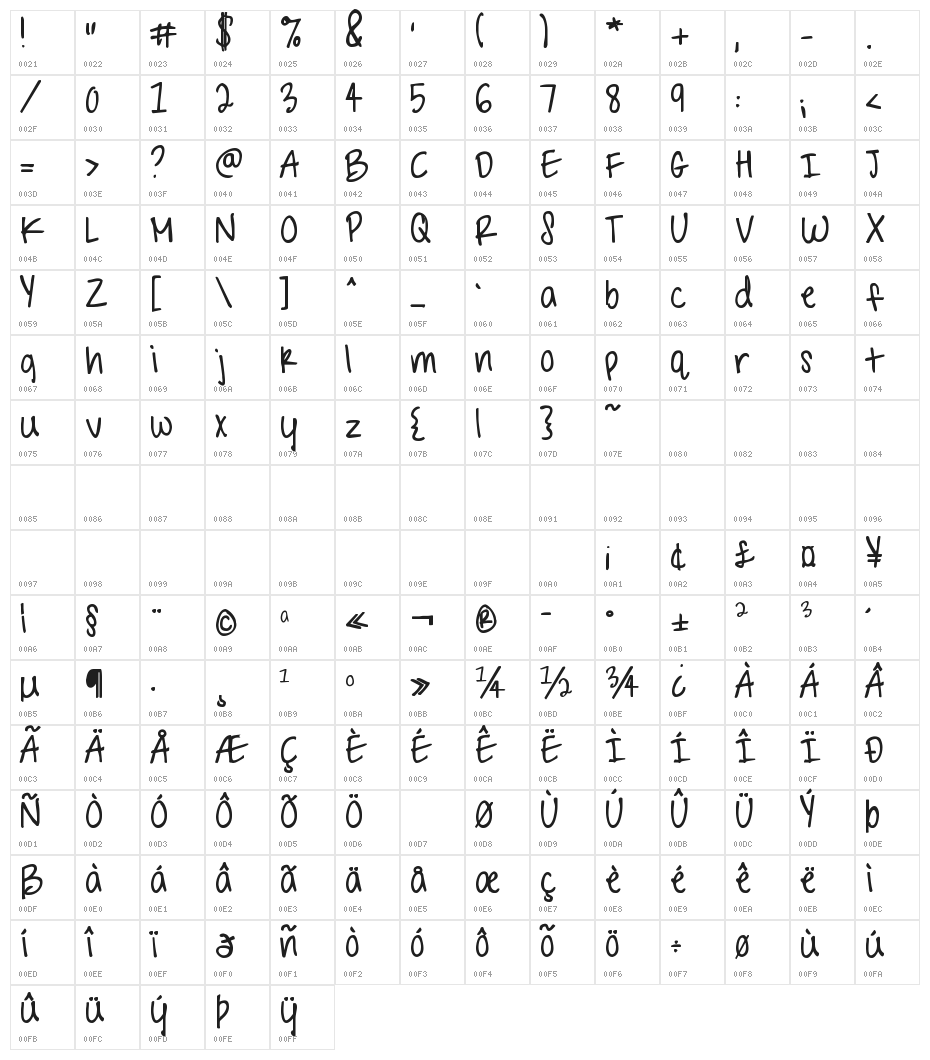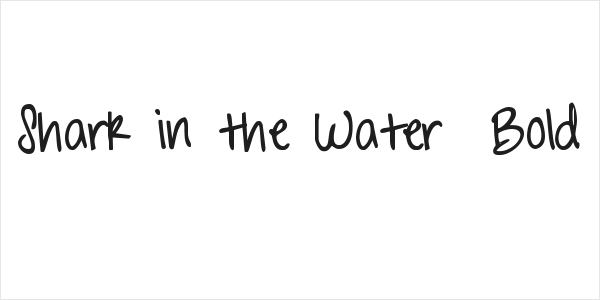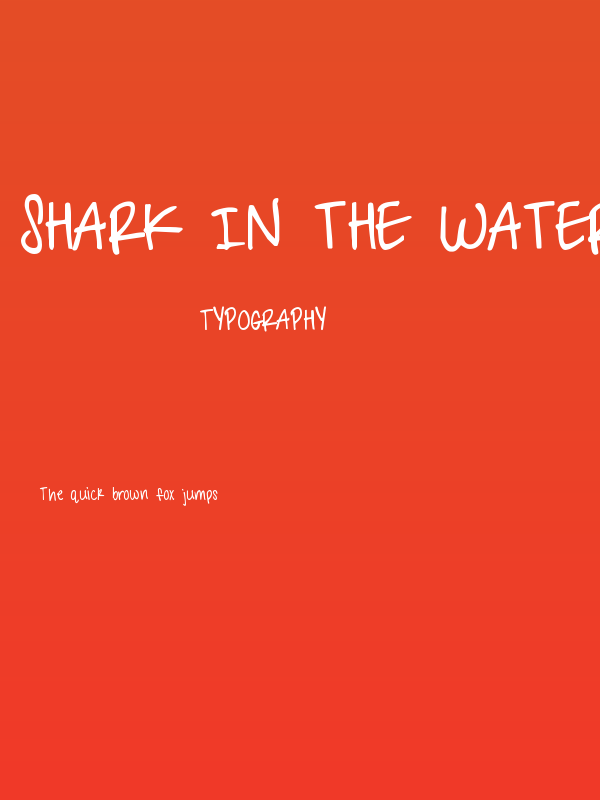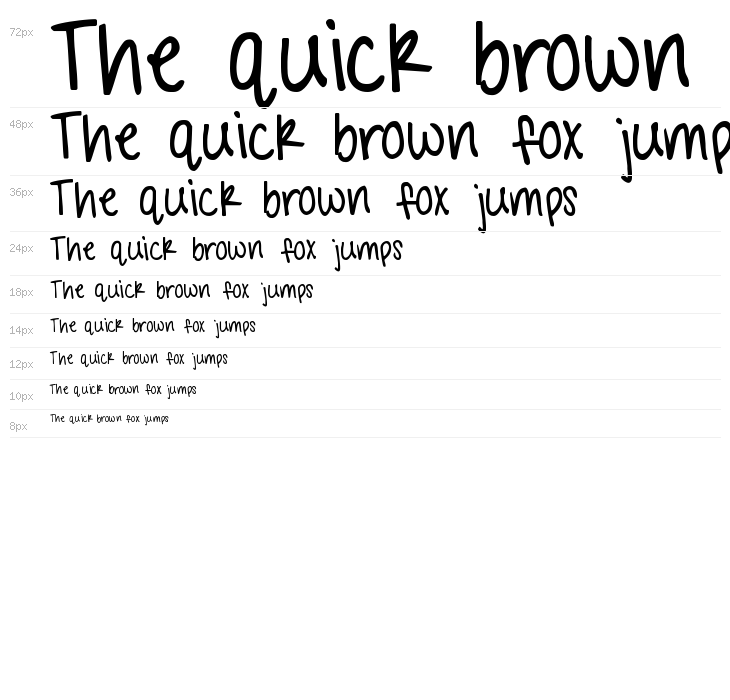
Shark in the Water Bold Font
Shark in the Water Bold Description
This font features a playful and casual handwritten style, characterized by its bold and slightly irregular strokes. The letters have a natural flow, with rounded edges and a lively appearance, making it feel approachable and friendly. The uppercase and lowercase letters maintain a consistent style, with a slight slant that adds to its dynamic feel. Numbers and special characters are equally expressive, maintaining the font's overall whimsical and informal vibe. This font is ideal for projects that require a personal touch or a sense of fun.
| Proposed Projects | Ideal for greeting cards, children's books, playful branding, and social media graphics. |